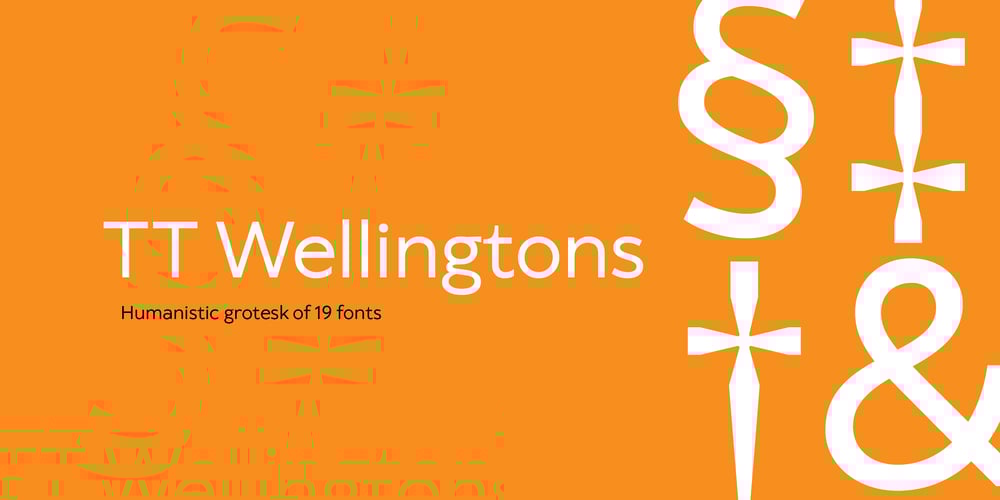
TT Wellingtons Font Family was designed by Marina Khodak, TypeType Team and published by TypeType. TT Wellingtons contains 19 styles and family package options. Specimen PDF | Graphic presentation | Customization optionsTT Wellingtons is reborn! Introducing the 2023 edition of the Humanist sans serif! Functional, aesthetic, and technically flawless. We have thoroughly worked on every contour and every detail of the font. The expanded character set now consists of 913 characters The font supports more than 230 languages 35 OpenType features, including new ligatures and stylistic alternates Most of the characters now have standardized and improved shapes